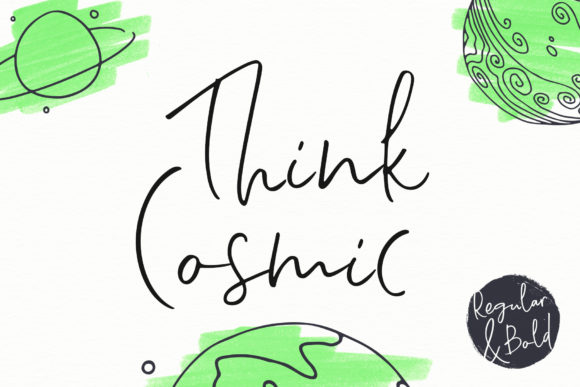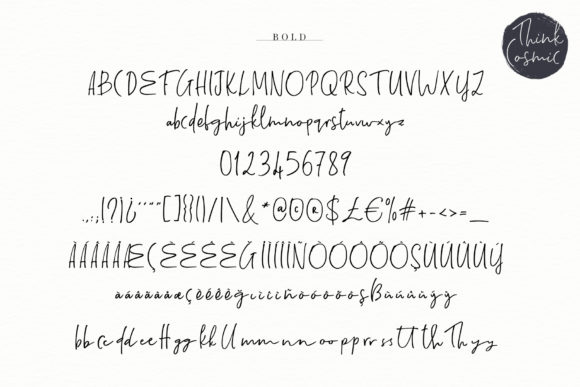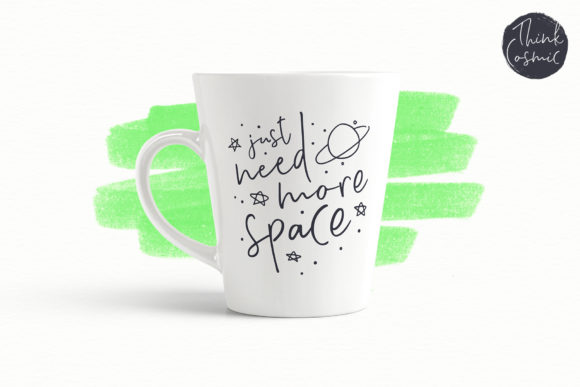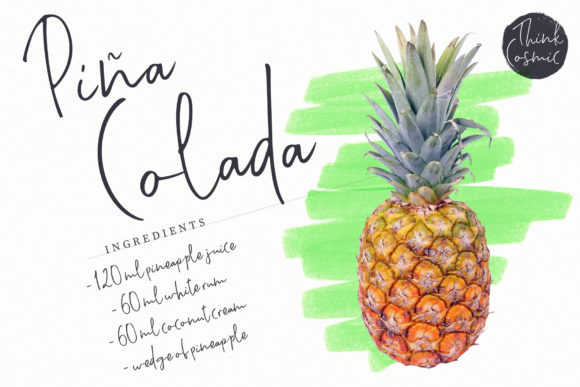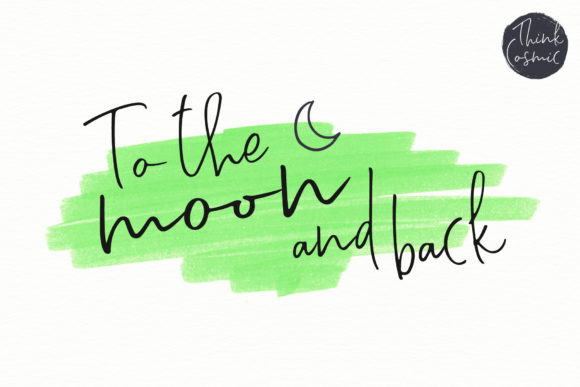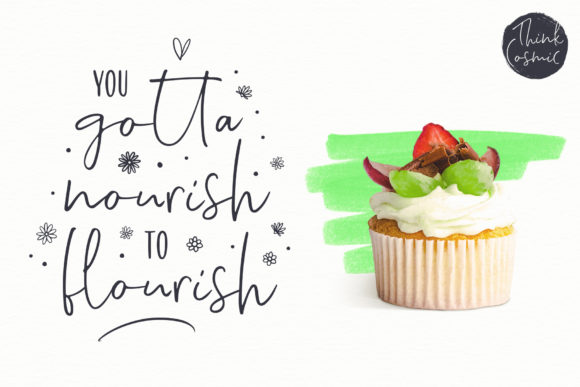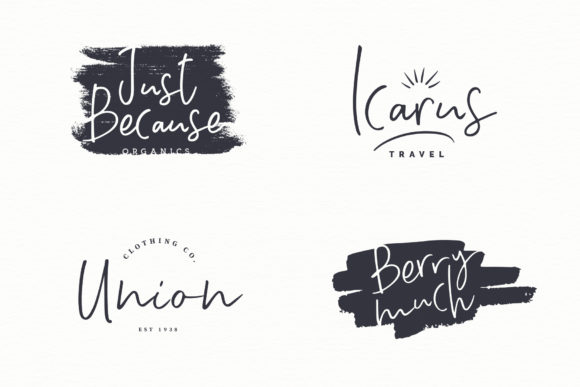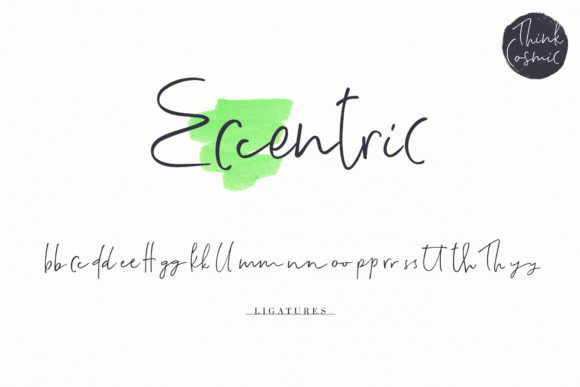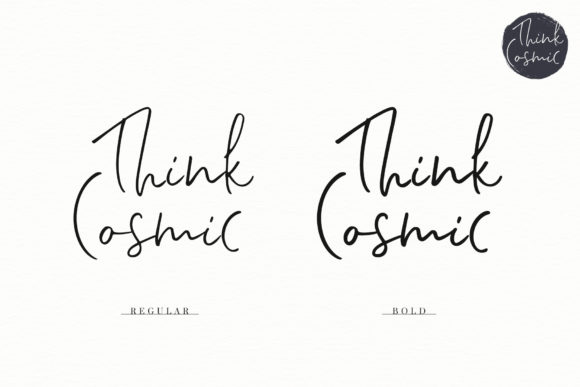
Think Cosmic Font
About Think Cosmic Font
The Think Cosmic is a casual handwritten typeface with out-of-this-world flair.
With it’s cute & quirky double letter ligatures, Think Cosmic displays a lot of character.